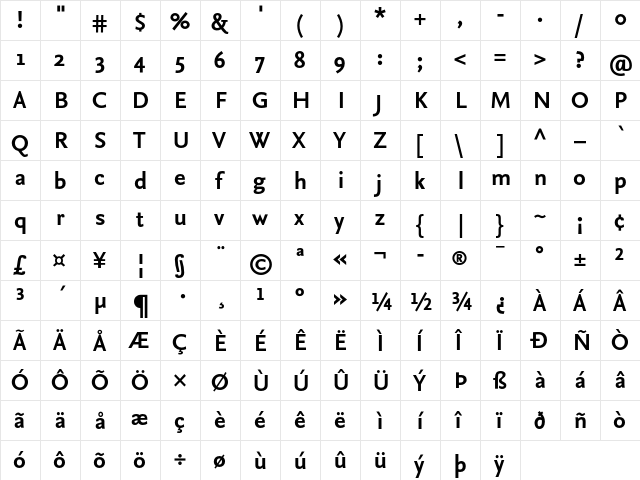
NexusSans-Bold Regular
Design Context for NexusSans-Bold Typeface
NexusSans-Bold is a composed and adaptable typeface that performs quietly and consistently across a wide range of design contexts. The heavy weight commands attention and anchors typographic hierarchies.